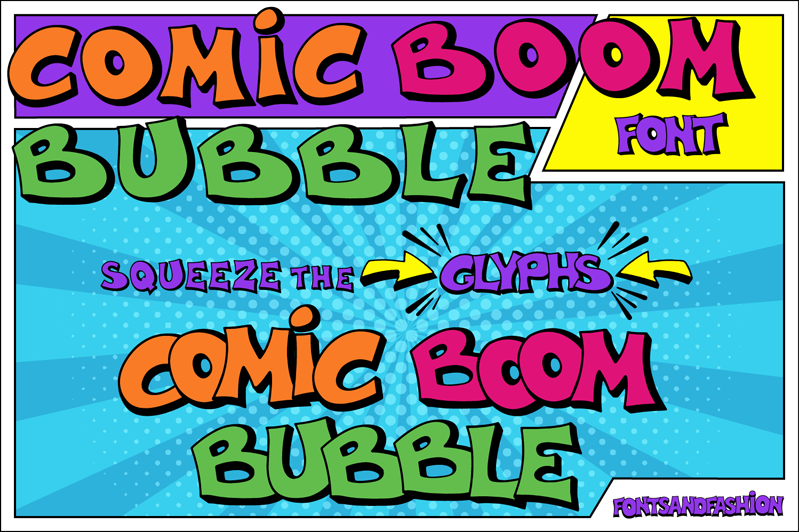
Preview and download Comic Boom Bubble Font. Created by fontsandfashion in Fancy Cartoon styles with Demo license.
This is is a DEMO version, so, just for personal use, would like to download the full version? Follow this link: https://fontbundles.net/httpswwwfontsandfashioncom/539402-comic-boom-bubble COMIC BOOM BUBBLE� is a hand-lettered font inspired by comic. It is caratterized by the enphasize roundness about some letters (it remind me the balls of bubblegum!) and by thickness difference of the Glyphs. Comic Boom Bubble gives to the text a cheerful appearance, cool & legible. Comic Boom Bubble is composed by 234 total Glyphs and supports English, French, Spanish, Portuguese and German. It is suitable for children's books, greeting cards, packaging, posters, t-shirts or wherever you need a fun touch in your text. Have fun! Follow us on: facebook: https://www.facebook.com/fontsandfashion Pinterest: https://www.pinterest.com/fontsandfashion Instagram: https://www.instagram.com/fontsandfashion |